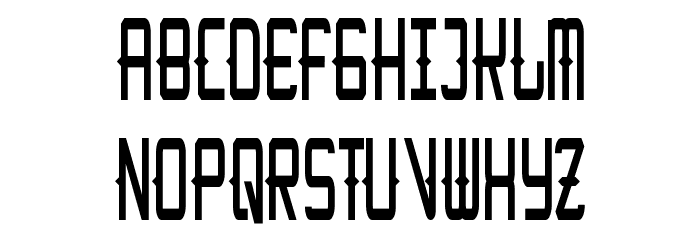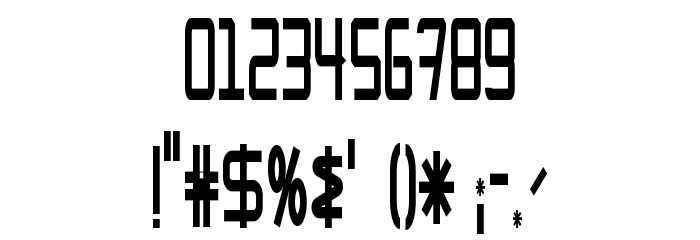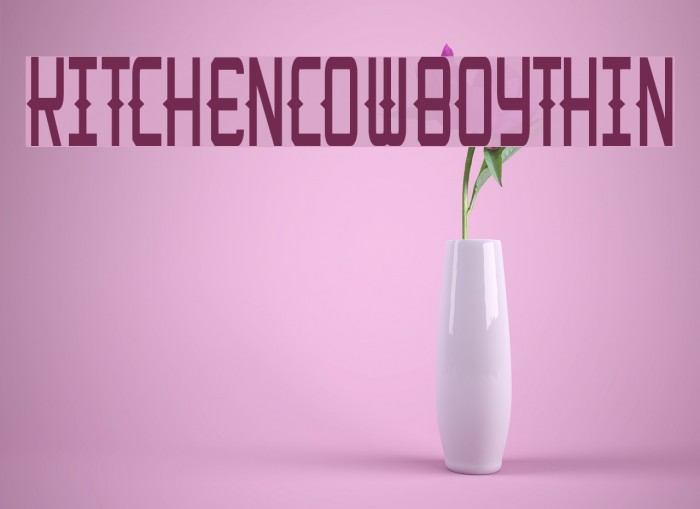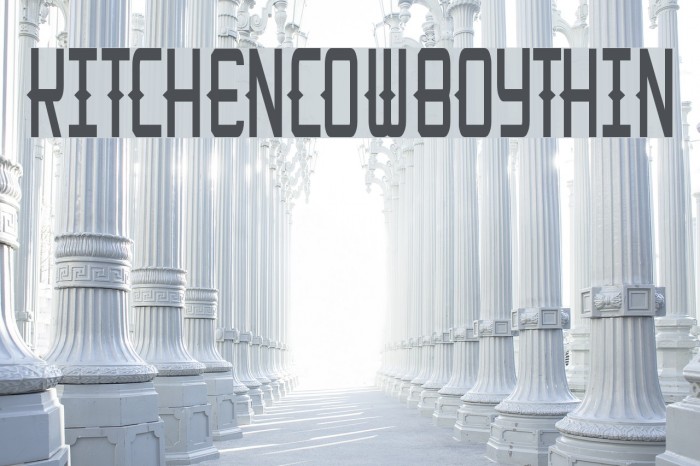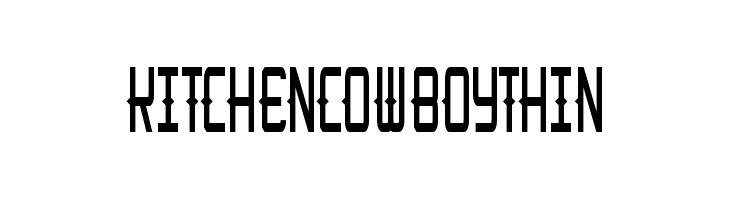
KitchenCowboyThin Font
This font features a unique, geometric style with a modern twist. The characters are constructed with straight lines and sharp angles, giving it a futuristic and industrial feel. The uppercase and lowercase letters maintain a consistent height, contributing to a uniform appearance. The numbers and special characters follow the same design principles, ensuring a cohesive look across all glyphs. The font's distinctiveness lies in its bold, blocky structure, which makes it stand out in any design. Its clean lines and precise angles make it suitable for projects that require a contemporary and edgy aesthetic.
A geometric, modern font with sharp angles and a futuristic feel.